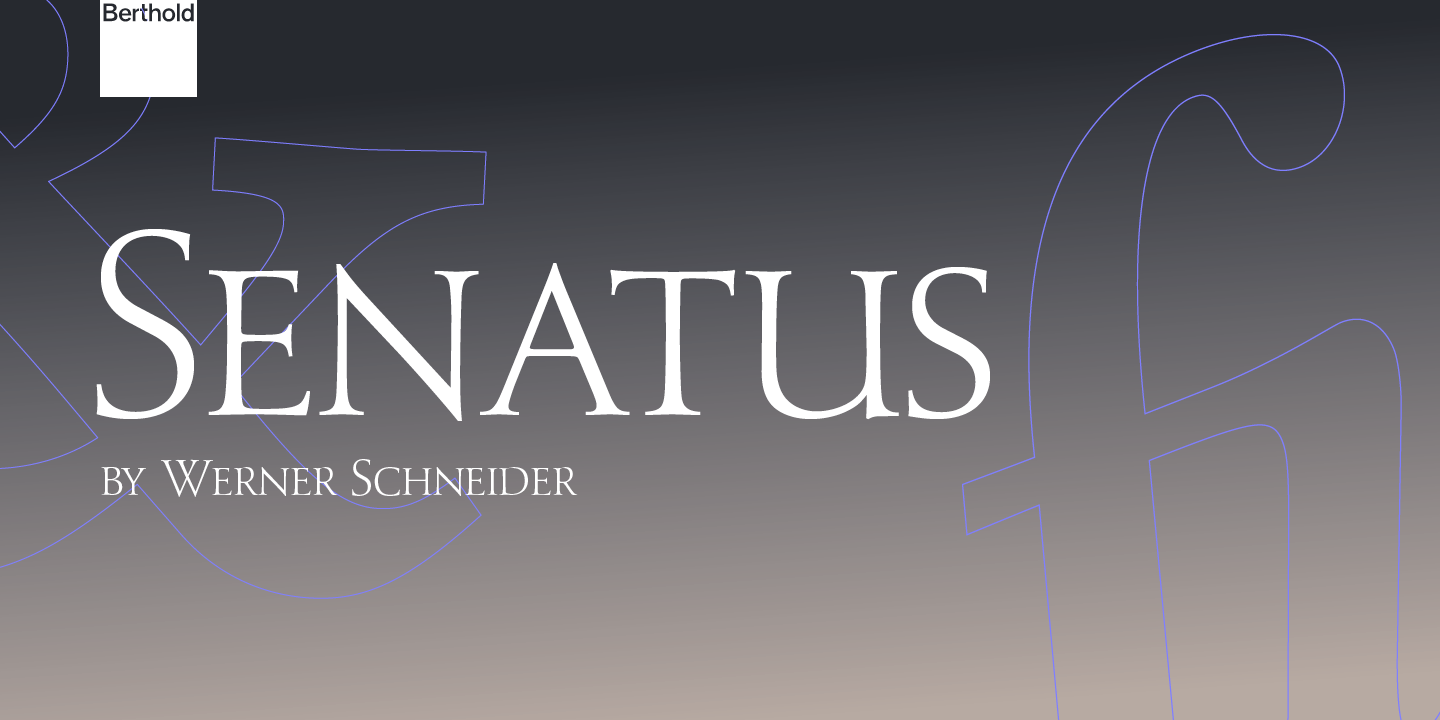
Senatus Font is an exceptional choice for projects that demand a sense of classical authority, refined tradition, and stately elegance. It's perfectly suited for historical documentation, academic publications, official insignia, legal firm branding, and any design where you want to evoke a feeling of established order and timeless gravitas. Imagine it gracing a university's seal, adding a distinguished air to a governmental report, or giving a brand a foundational sense of heritage and reliability. Its strong, clear serifs and balanced letterforms ensure your message is conveyed with both dignity and an undeniable sense of prestige.
What makes Senatus Font so exciting is its profound connection to classical typography, bringing a sense of solemnity and intellectual weight to modern designs. It’s more than just a typeface; it’s a nod to historical craftsmanship, allowing designers to tap into the powerful aesthetic of ancient inscriptions and venerable texts. This font doesn't just display text; it lends an air of importance to every word, making content feel authoritative and deeply significant. It's the ideal tool for projects that demand a unique blend of historical accuracy and commanding visual presence.
The Senatus Font family typically offers a range of weights and styles to provide comprehensive design flexibility. You might find a standard Regular weight that embodies its core classic design, along with potential variations such as a Light for subtle refinement or a Bold for pronounced impact and emphasis. These different styles allow for creating sophisticated typographic compositions, ensuring that whether you need a delicate touch for footnotes or a strong statement for main titles, the Senatus Font Free Download provides the foundational versatility to achieve a truly distinctive and memorable design.